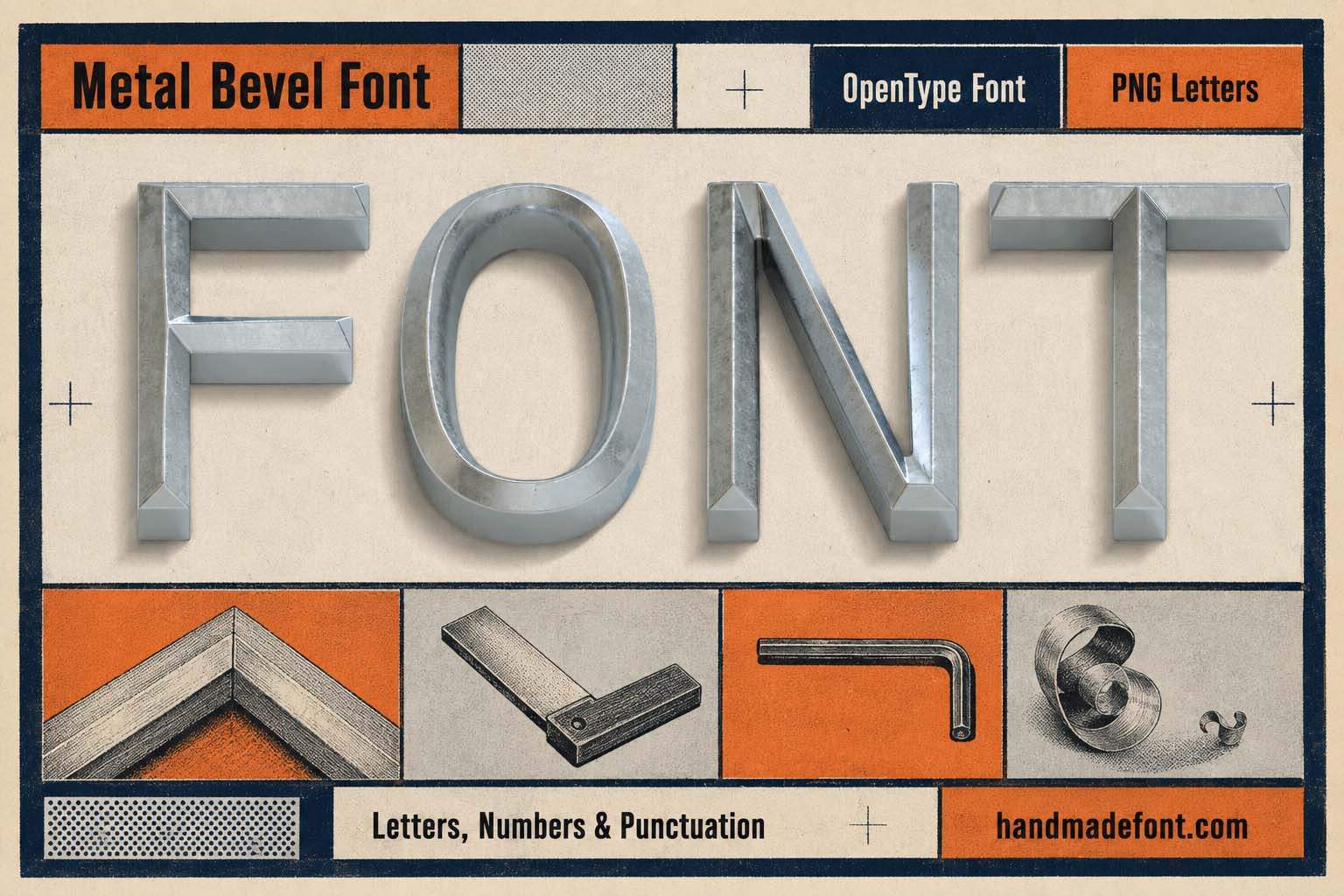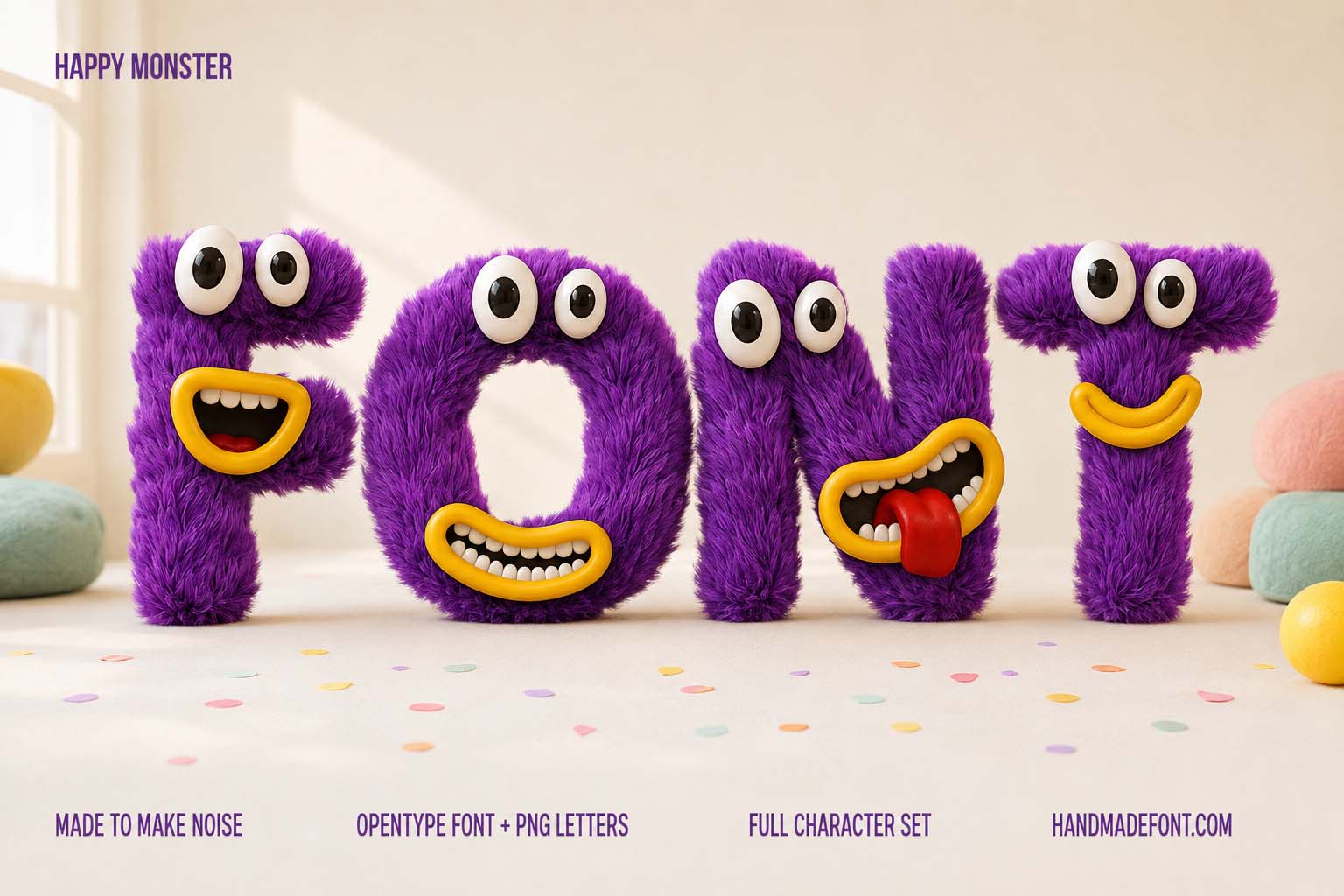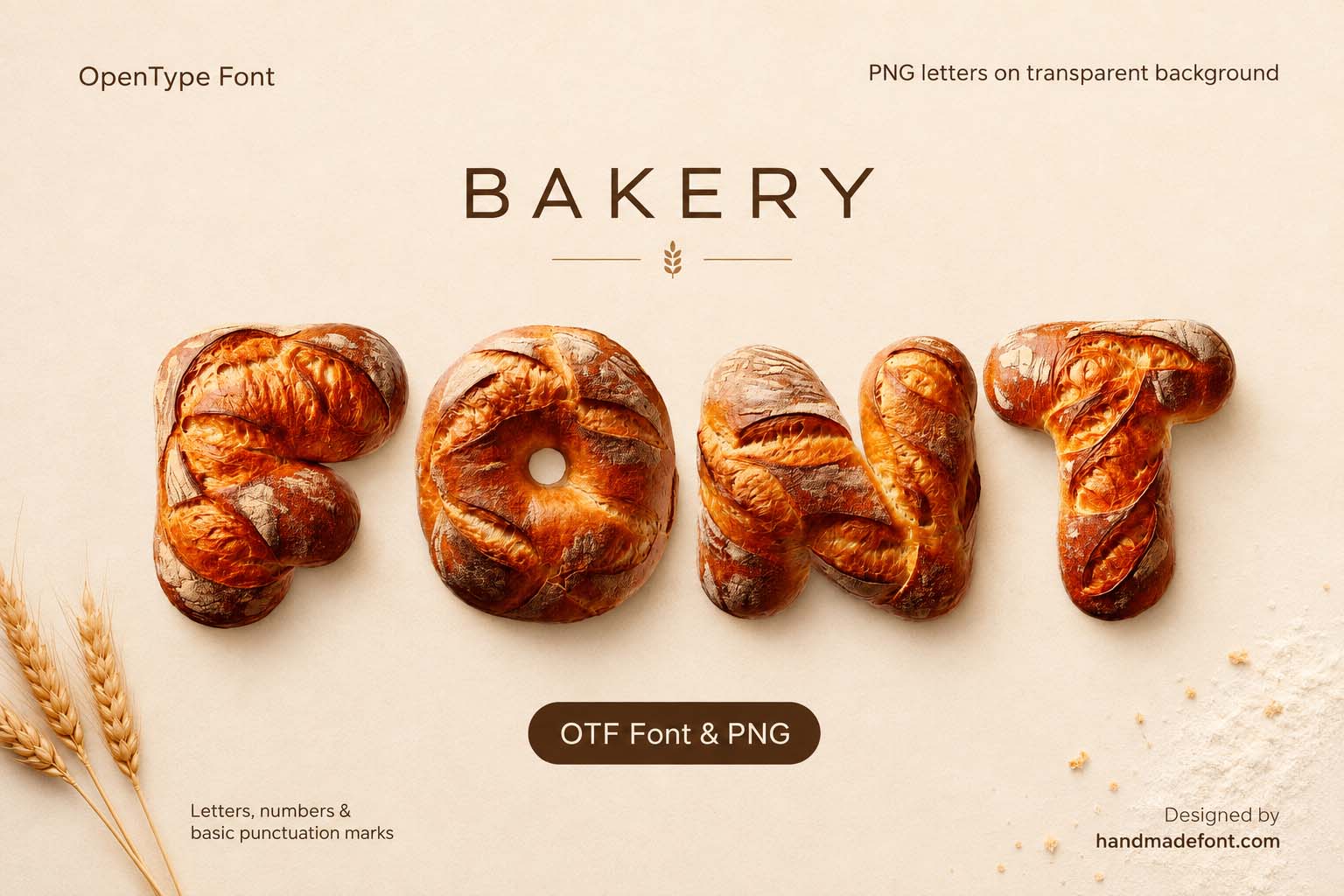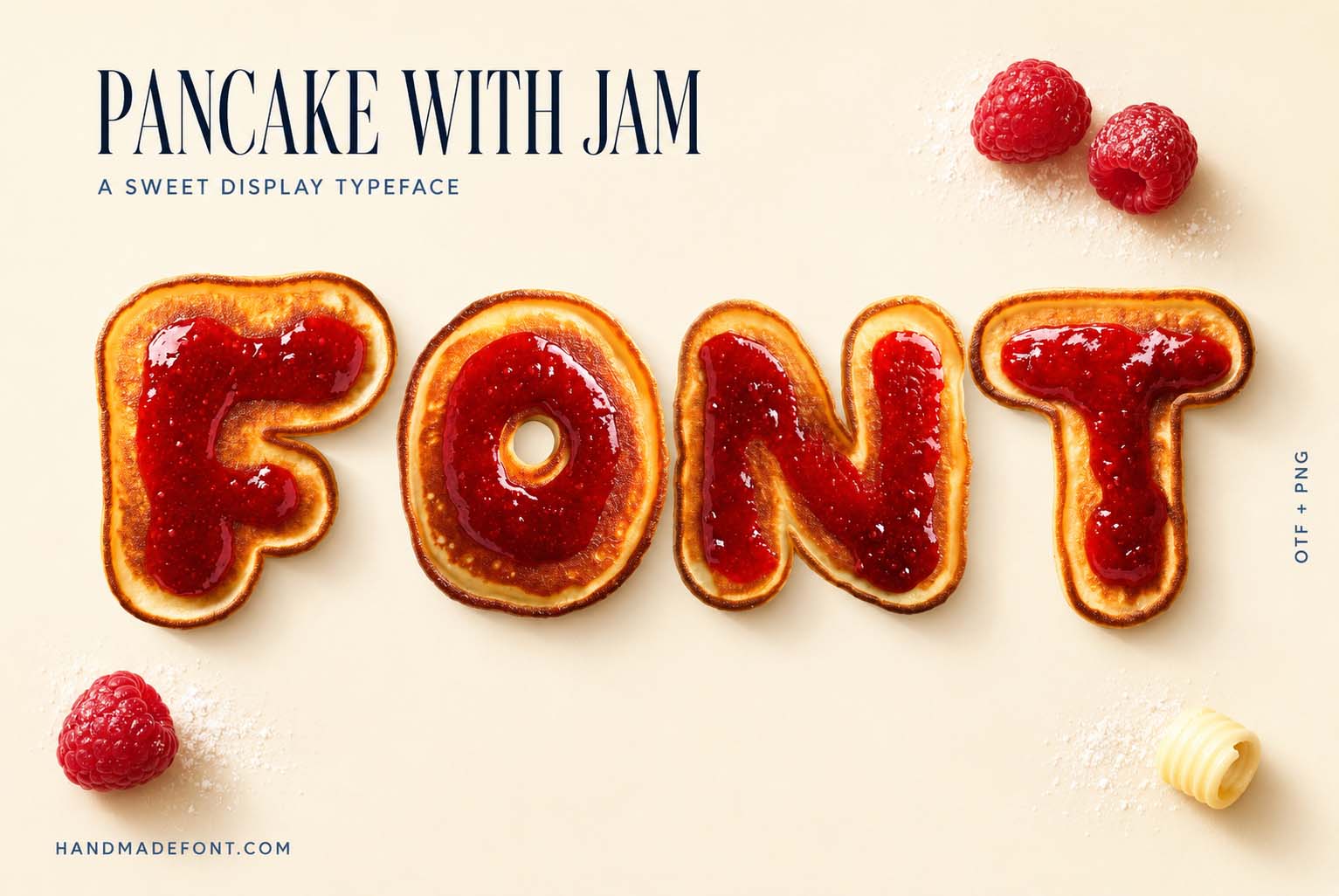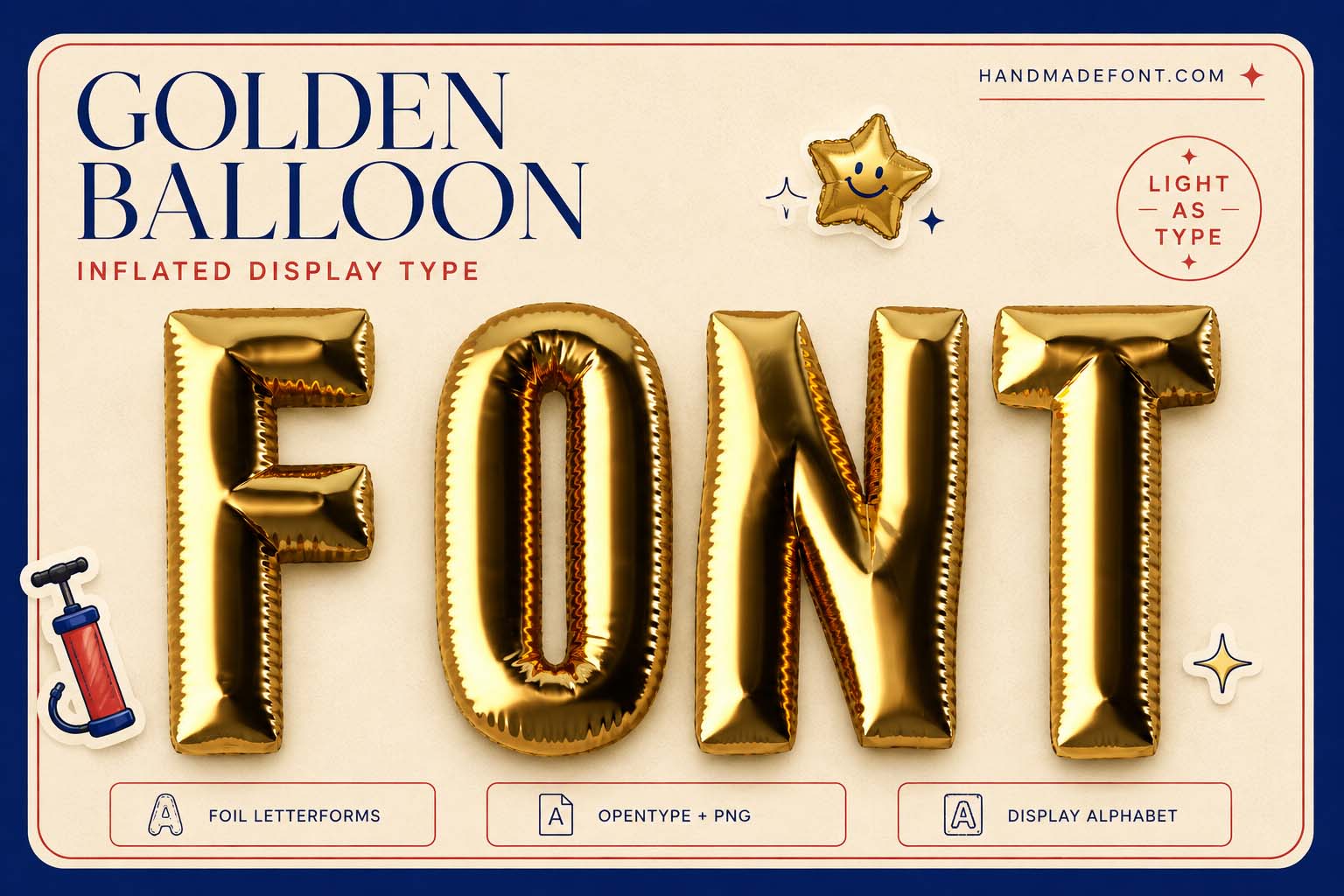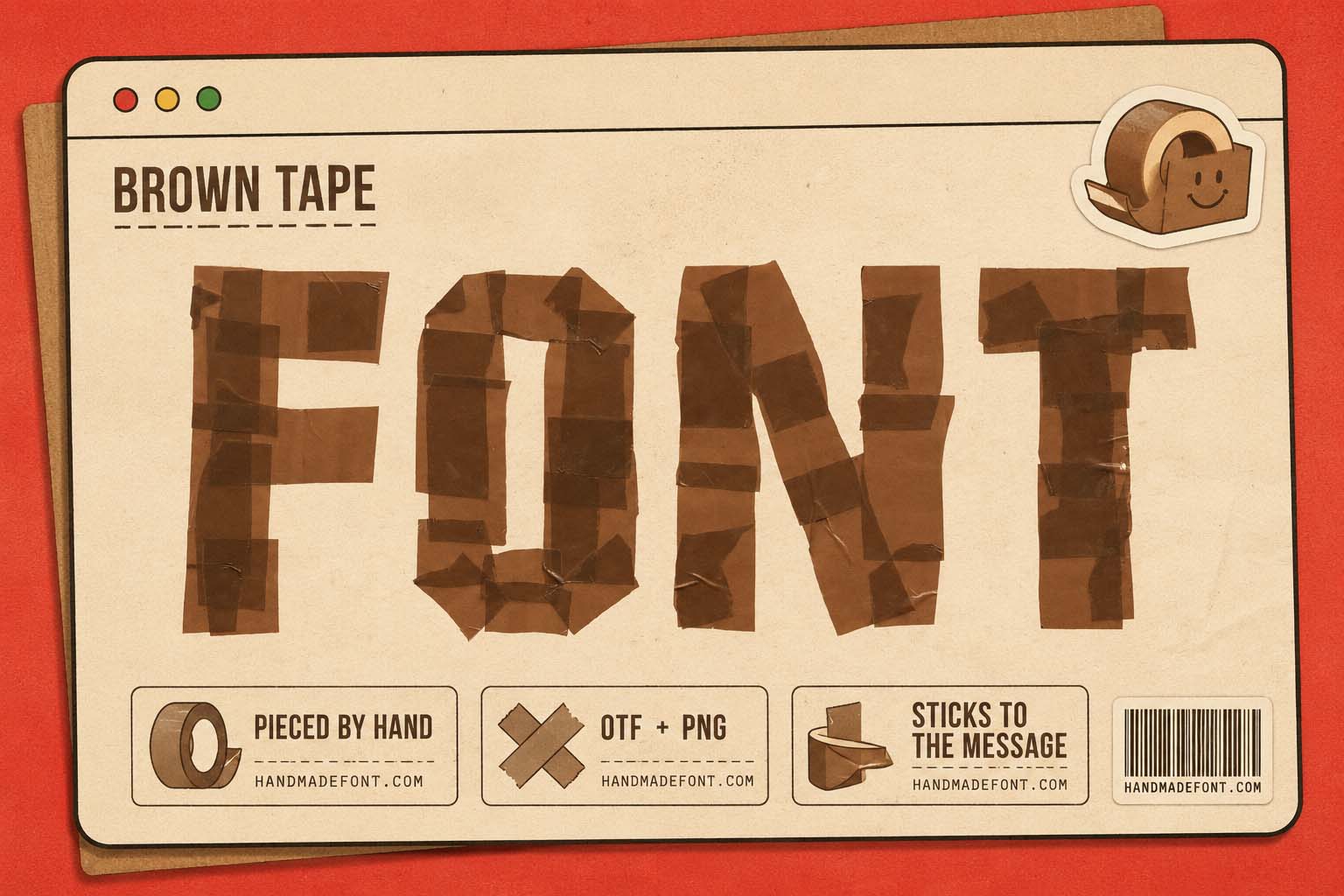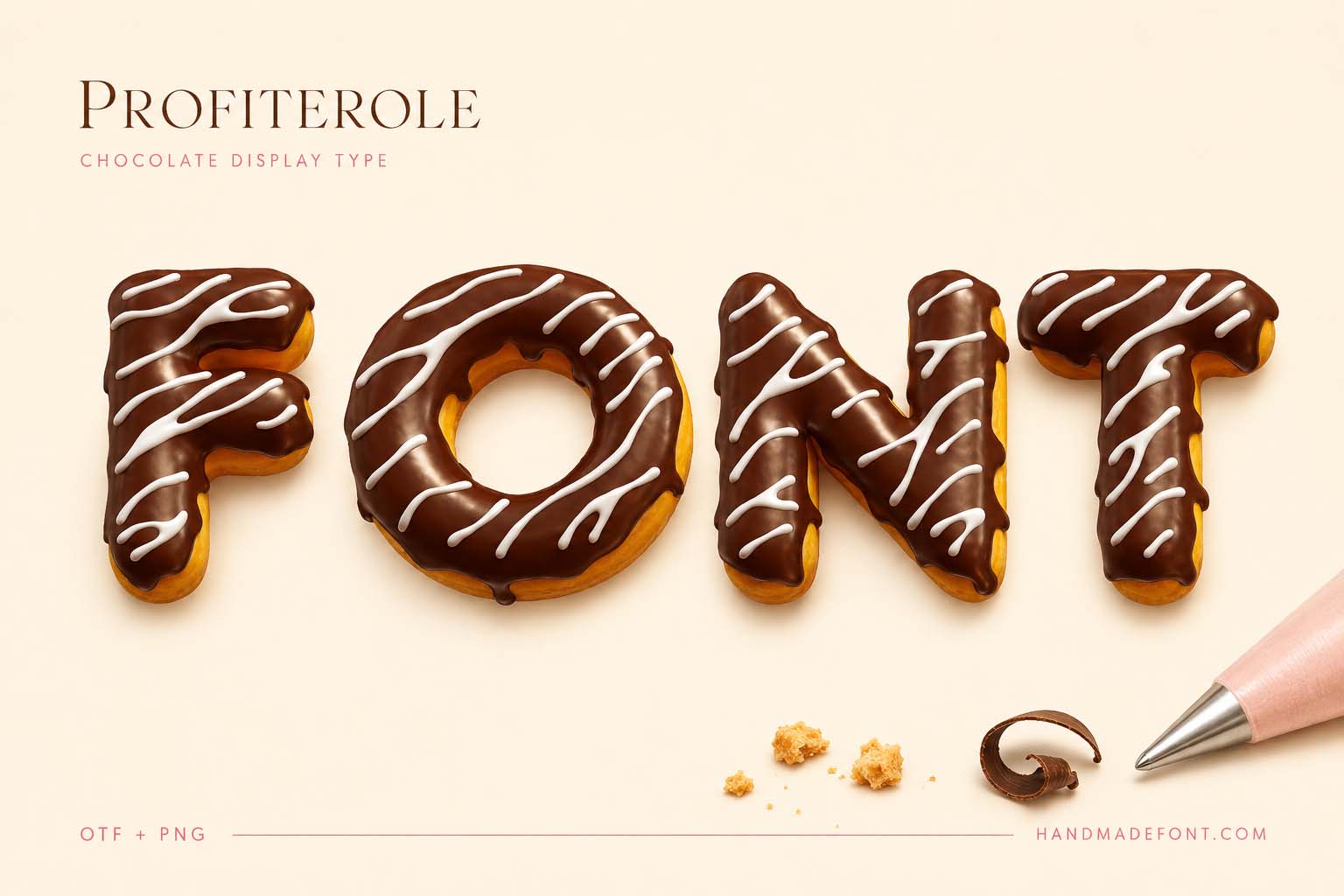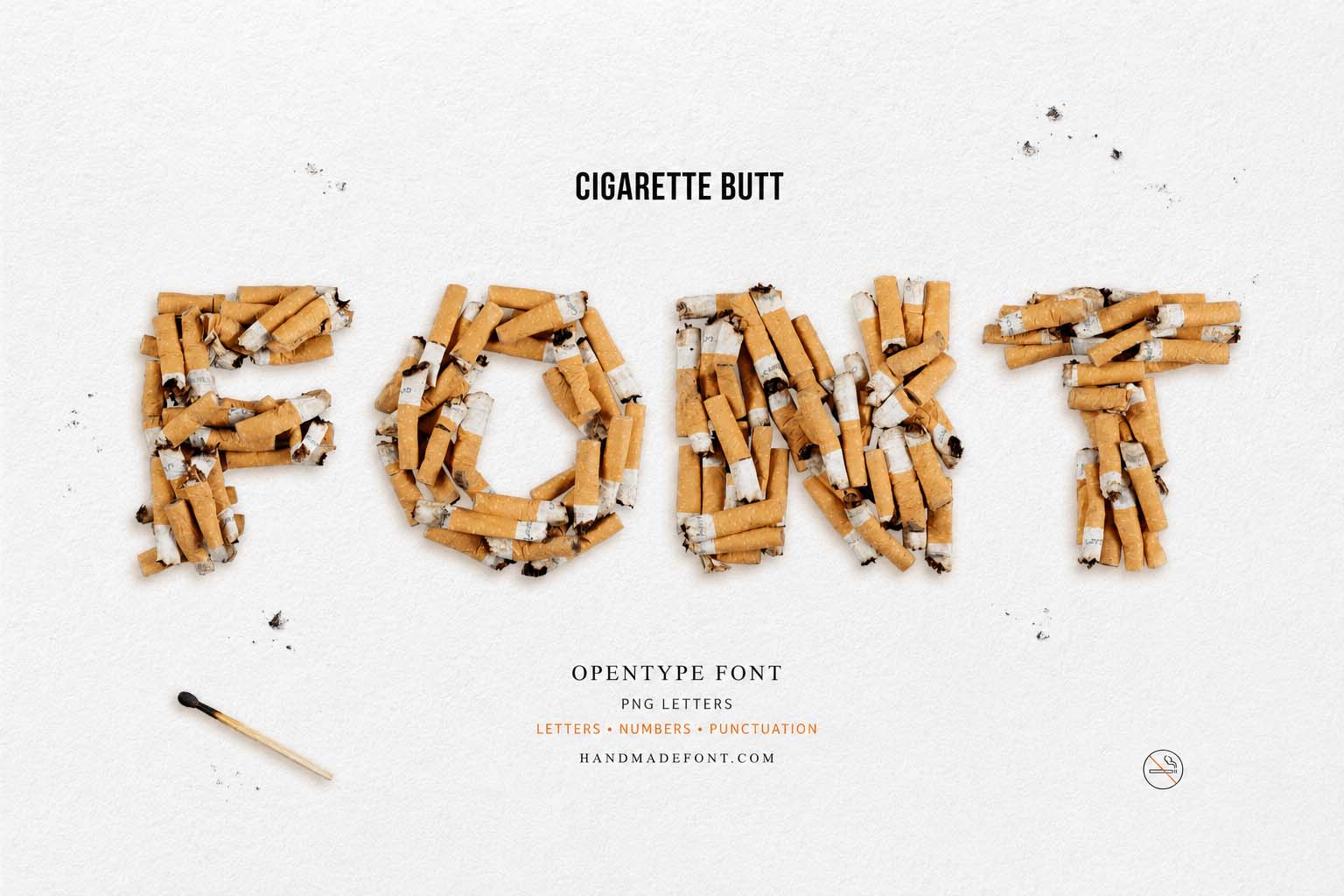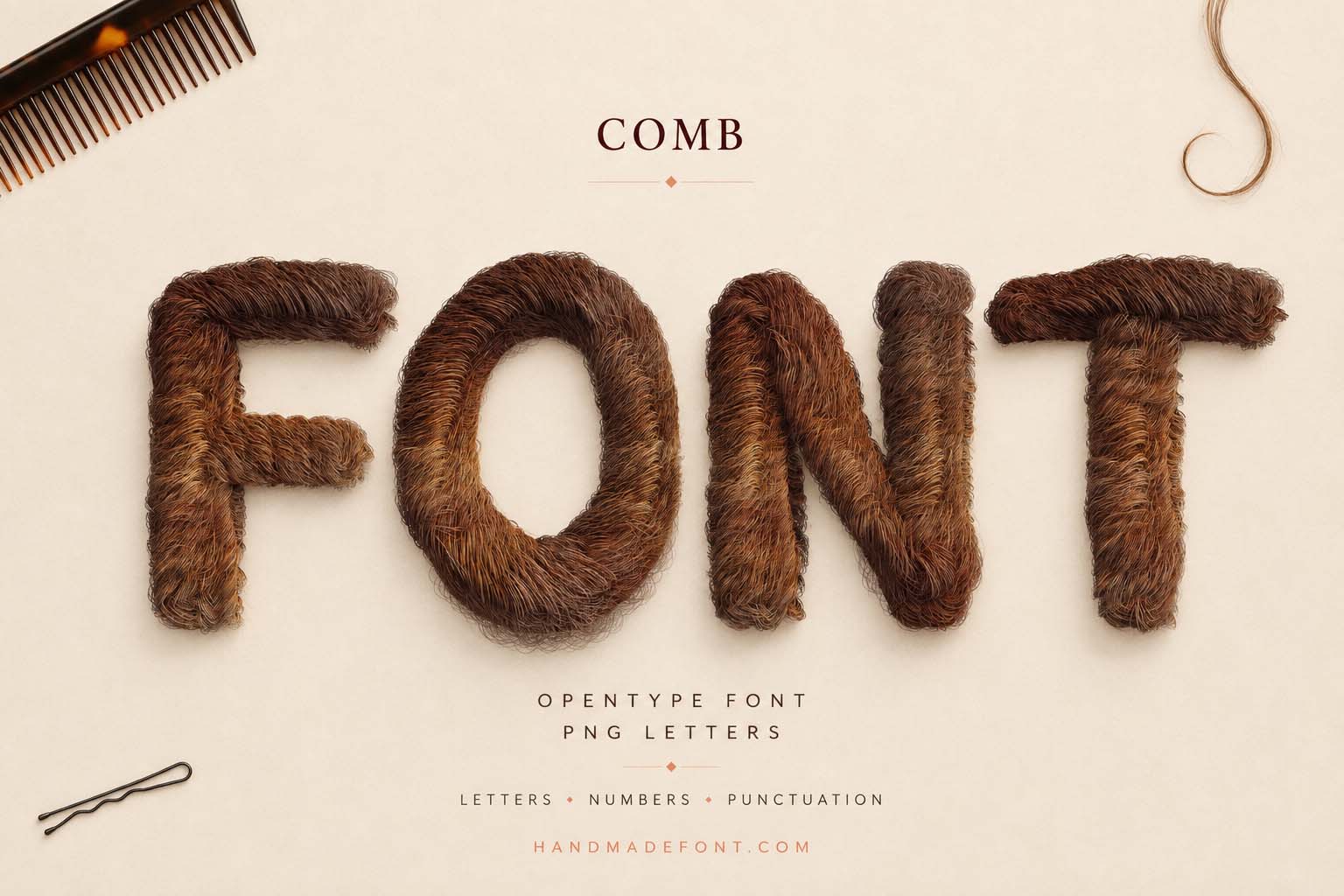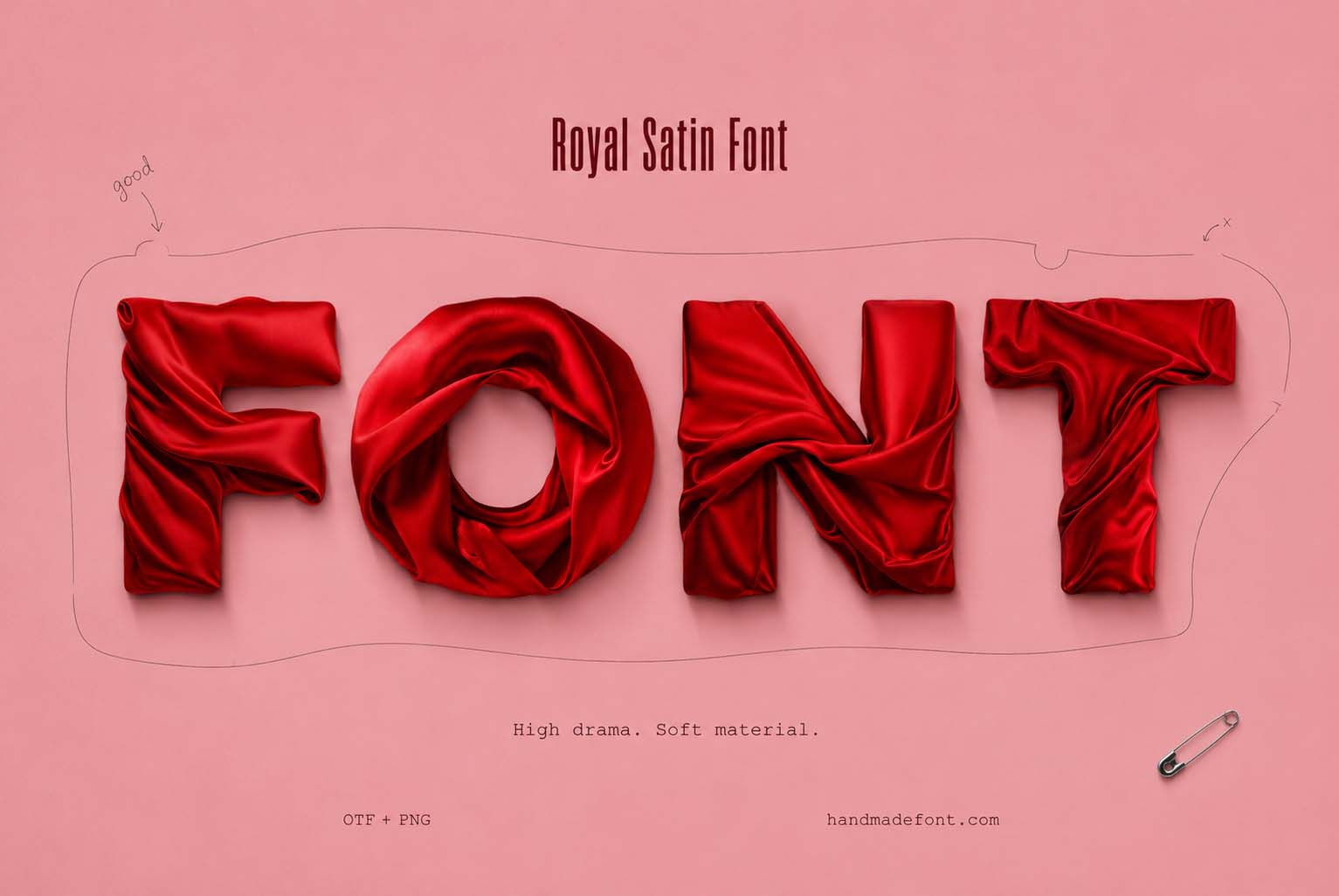
Font Inspiration
Explore creative typography made from real food, wood, plants, paint and unexpected materials. Each example shows how Handmadefont typefaces can shape packaging, posters, branding and editorial design. Select an image to discover the complete font and its individual PNG letters.
Choco Melt Font
Choco Melt Font pours soft, glossy chocolate into rounded capitals for confectionery packaging, café menus and sweet dessert posters.
SPA Stones Font
SPA Stones Font lays smooth river pebbles into calm letters for spa brands, wellness retreats and natural cosmetics labels.
Speedy Font
Speedy Font stacks jointed retro segments into fast capitals for racing events, vintage sports posters and bold motion branding.
Steak Font
Steak Font carves grilled, char-marked meat into hearty letters for steakhouse menus, barbecue festivals and butcher shop signage.
Wax Font
Wax Font moulds soft beeswax into chunky rounded letters for candle makers, handmade cosmetics and warm vintage packaging.
Melted Black Paint Font
Melted Black Paint Font drags heavy brush strokes into dripping letters for street-art posters, music covers and gritty urban branding.
Christmas Cookies Font
Christmas Cookies Font bakes gingerbread letters with piped icing for holiday cards, bakery packaging and festive Christmas promotions.
Tape White Font
Tape White Font tears strips of masking tape into angular capitals for DIY brands, zine covers and handmade studio branding.
Urban Rubbish Font
Urban Rubbish Font ties black bin bags into puffy capitals for recycling campaigns, eco activism posters and edgy streetwear graphics.
Gothic Gilt Font
Gothic Gilt drips liquid gold over spiked gothic letters for luxury Halloween events, dark fantasy covers and opulent label design.
Noir Sticker Font
Noir Sticker Font cuts glossy black vinyl into tall letters for poster headlines, signage mock-ups and bold editorial layouts.
Bone Font
Bone Font builds every stroke from a clean white bone for Halloween parties, horror titles and playful pet shop graphics.
Woven Carpet Font
Woven Carpet Font weaves Persian rug patterns into bordered letters for interior brands, oriental restaurants and textile shop branding.
Burnt Relics Font
Burnt Relics Font cracks ash-crusted gothic letters over buried embers for fantasy game titles, metal album covers and dark posters.
Violin Harmony Font
Violin Harmony Font shapes varnished violin bodies into elegant letters for concert posters, music schools and classical festival branding.
Stone Stack Font
Stone Stack Font piles rough field stones into sturdy capitals for garden centres, landscaping brands and earthy outdoor posters.
Mortadella Font
Mortadella Font cuts pink Italian deli slices into soft rounded letters for salumeria menus, deli packaging and food market signs.
Chicken Bones Font
Chicken Bones Font lays real little bones into eerie capitals for Halloween posters, barbecue joints and dark humour merch.
Cigarette Butt Font
Cigarette Butt Font packs crushed filters and curling ash into gritty letters for anti-smoking campaigns, eco activism and urban zines.
Comb Font
Comb Font brushes thick auburn hair into soft furry letters for hair salons, barber shops and beauty product packaging.
Tennis Grass Font
Tennis Grass Font mows crisp court turf into a clean sans for tennis clubs, summer tournaments and sports apparel.
Royal Satin Font
Royal Satin Font drapes glossy red satin into luxurious capitals for fashion labels, Valentine campaigns and premium invitations.
SPA Stones Font
SPA Stones Font arranges smooth river pebbles into calm letters for spa menus, wellness retreats and zen interior branding.
Steak Font
Steak Font carves juicy grilled meat with char marks into bold letters for steakhouse menus, BBQ festivals and butcher shop signs.
Wax Font
Wax Font shapes soft melted wax into rounded letters for candle brands, cosmetics packaging and cosy handmade product labels.
Wooden Logs Font
Wooden Logs Font cuts timber slices with tree rings and bark into chunky letters for carpentry brands, cabins and outdoor gear.
Bacon Font
Bacon Font fries crispy thick-cut strips into wavy letters for breakfast diners, burger menus and brunch posters.
Happy Balloon Font
Happy Balloon Font inflates glossy rubber balloons into playful letters for birthday invitations, party banners and kids events.
Glam Font
Glam Font sets sparkling pave diamonds in polished silver for jewellery brands, luxury events and glamorous party invitations.
Golden Drip Font
Golden Drip Font pours thick liquid gold into dripping capitals for luxury branding, music covers and anniversary celebrations.
Summer Berries Font
Summer Berries Font packs fresh strawberries, blueberries and raspberries into bold capitals for smoothie bars, jam labels and summer market posters.
Fried Potatoes Font
Golden potato characters add crunchy humor to fast-food menus, takeaway packaging and restaurant social content.
Golden Balloon Font
Inflated golden characters combine humor and glamour for party branding, festive campaigns and eye-catching event graphics.
Golden Chain Font
Interlocking gold links create a bold luxury alphabet for fashion graphics, music artwork and premium product branding.
Craft Wood Font
This alternate wooden arrangement offers fresh inspiration for craft brands, sustainable packaging and rustic visual systems.